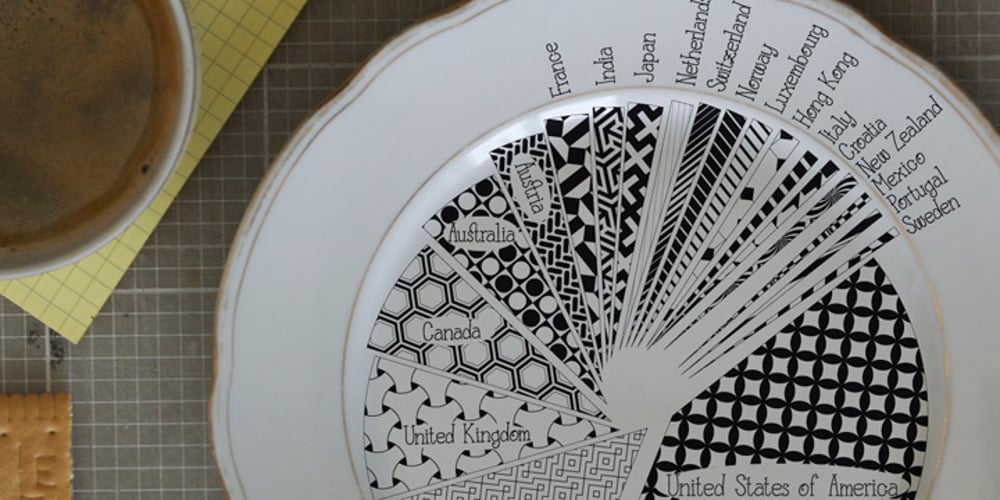
Cute Letters Font Family was designed by Harald Geisler and published by Harald Geisler. Cute Letters contains 2 styles and family package options. Cute Letters is a hand drawn font family in two styles with extensive character sets. Cute Letters – Hearted is a vibrant happily singing script, all capital as well as some lowercase letters are decorated with heart shapes. Second: Cute Letters – Heartless is still as vivid as it’s sister Hearted but a little less briskly, some straightened forms and without the decorative hearts. Both styles are readable and suitable for longer texts in medium point sizes. Cute Letters Hearted & Heartless is a part of the Light Hearted Font Collection that is inspired by a recording of Jean Baudrillard with the title, “Die Macht der Verführung” (The Power of Seduction) from 2006. Further inspiration came from the article, “The shape of the heart: I’m all yours”. The heart represents sacred and secular love: a bloodless sacrifice. by British writer Louisa Young printed in EYE magazine (#43) London, 2002.